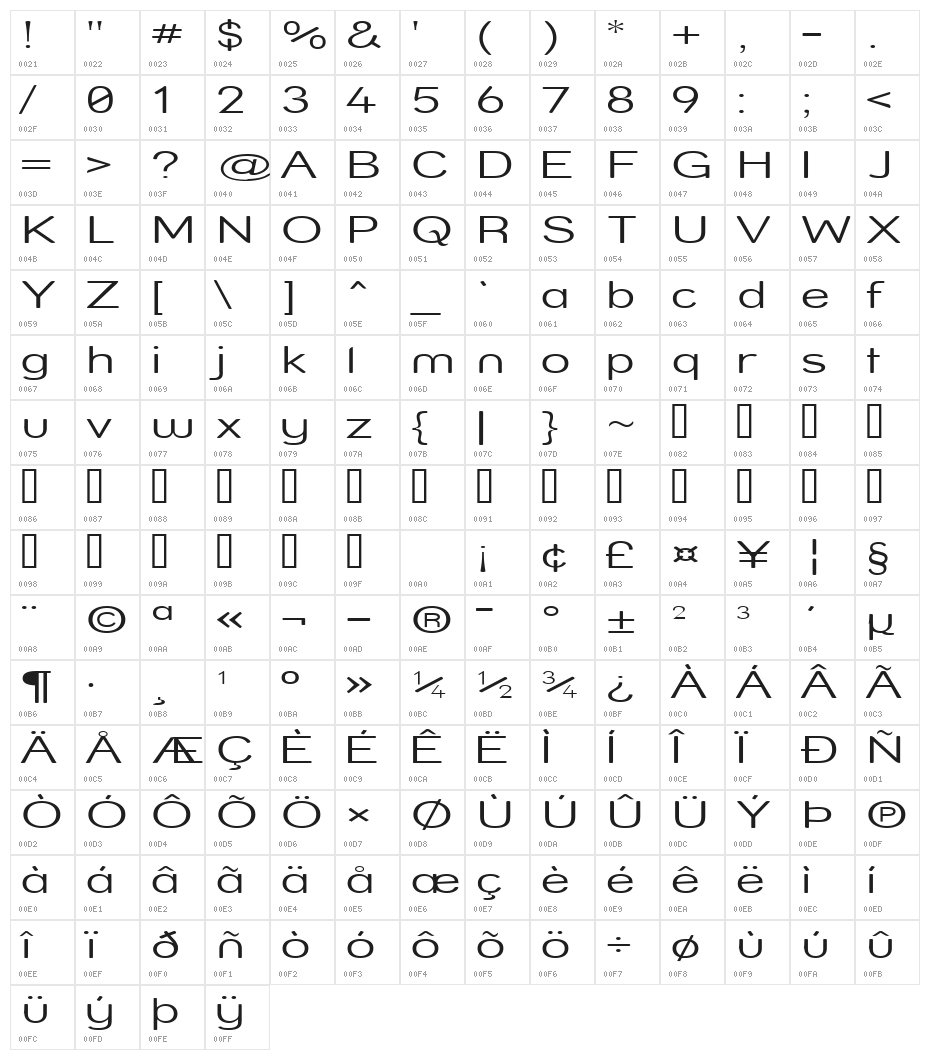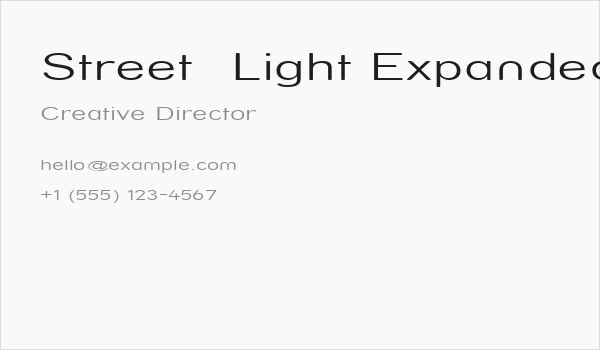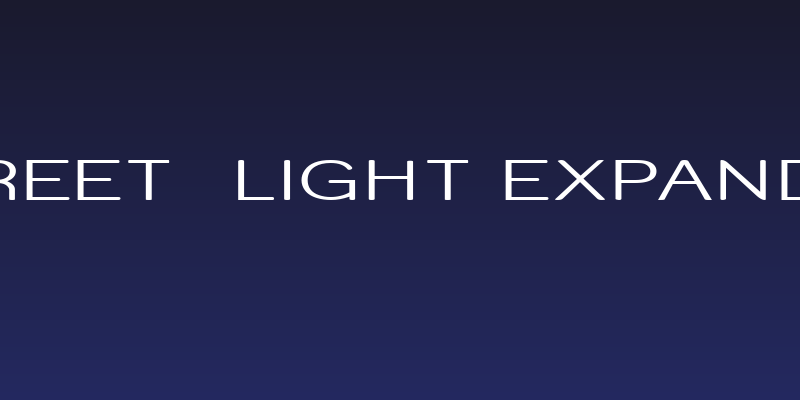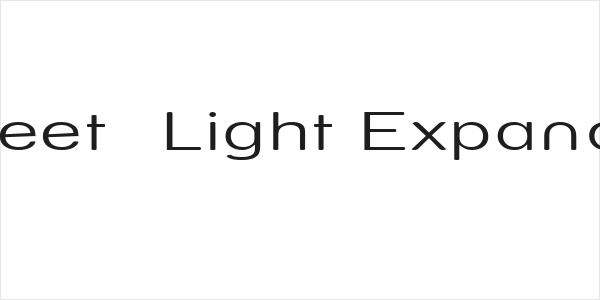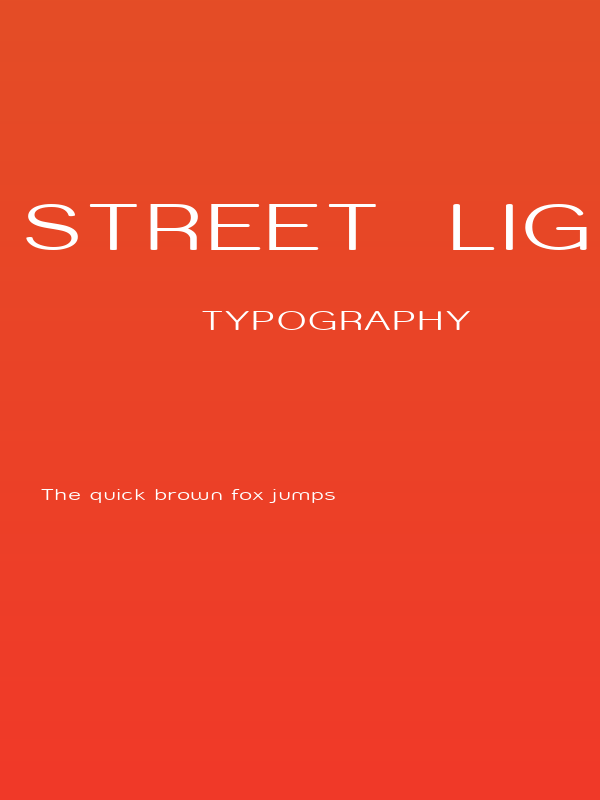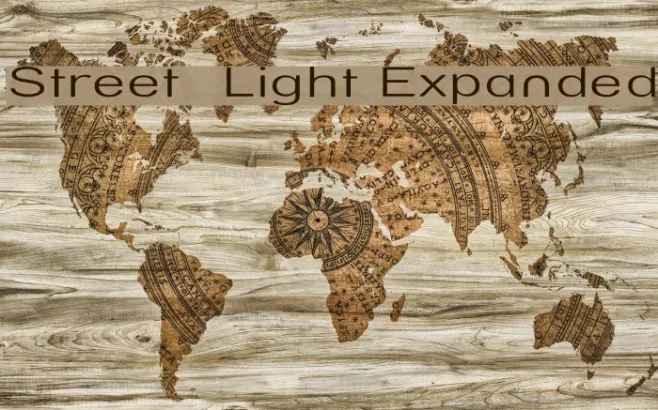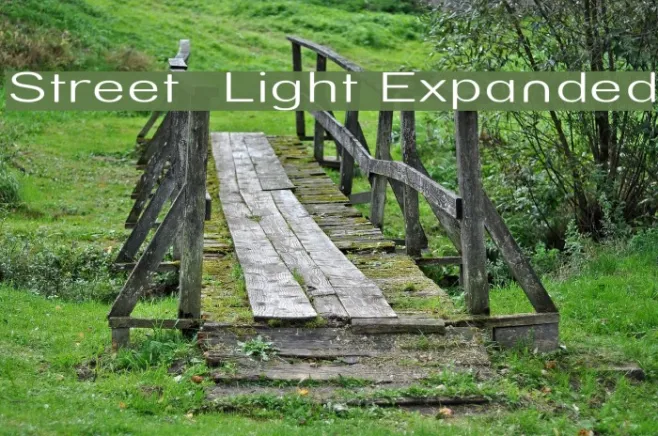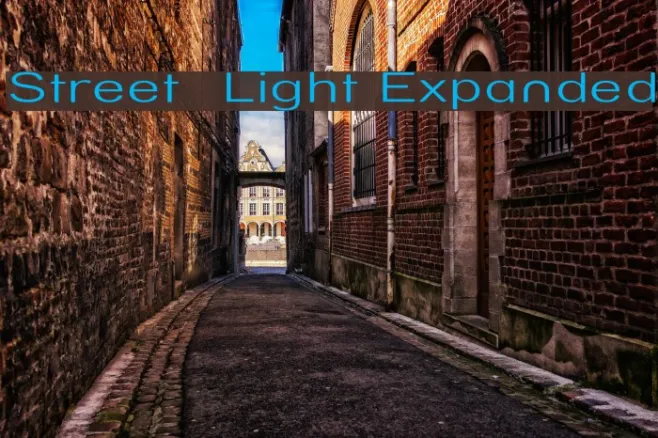
Street Light Expanded Font
Street Light Expanded Description
This typeface features a clean and modern sans-serif design with an expanded width. The characters are evenly spaced, providing a balanced and open appearance. The strokes are consistent in thickness, offering a low contrast that enhances readability. The overall look is sleek and contemporary, making it suitable for a variety of digital and print applications. The numerals and special characters maintain the same stylistic approach, ensuring uniformity across different uses. Its simplicity and clarity make it a versatile choice for designers seeking a minimalist aesthetic.
| Proposed Projects | Ideal for branding, web design, advertising, and editorial layouts where a modern and clean look is desired. |